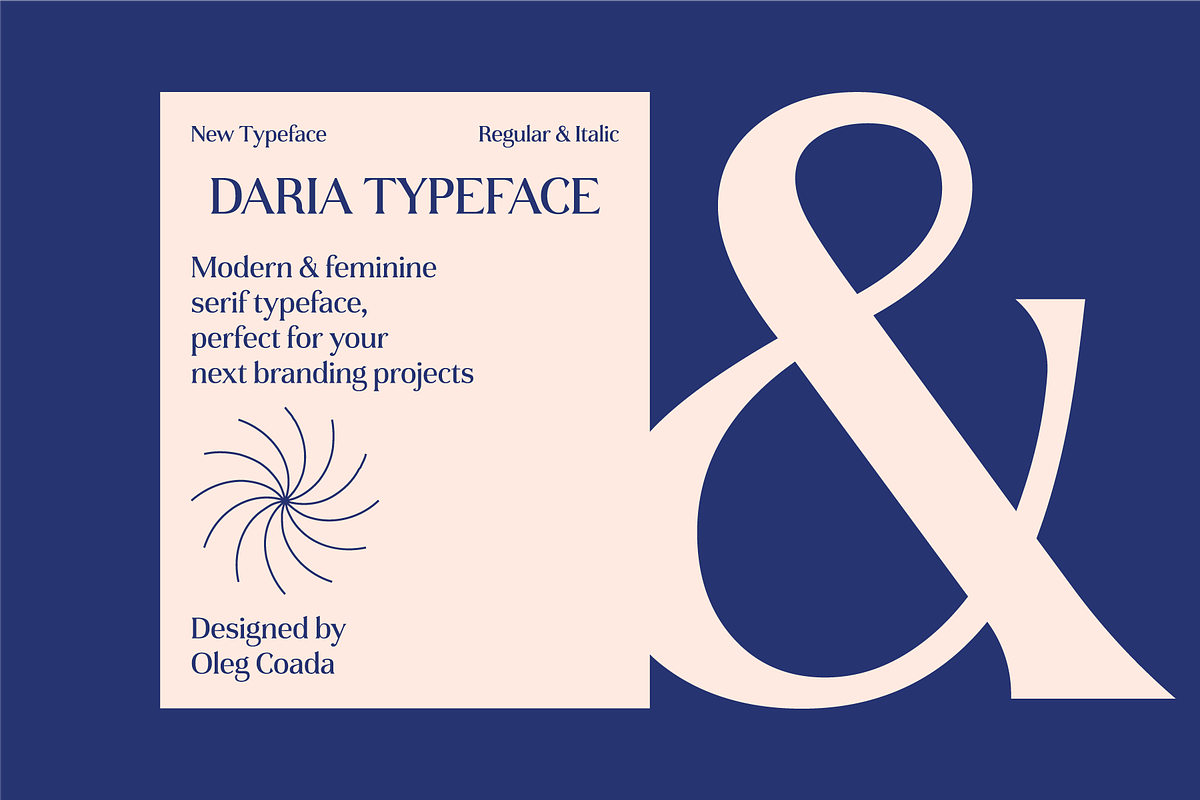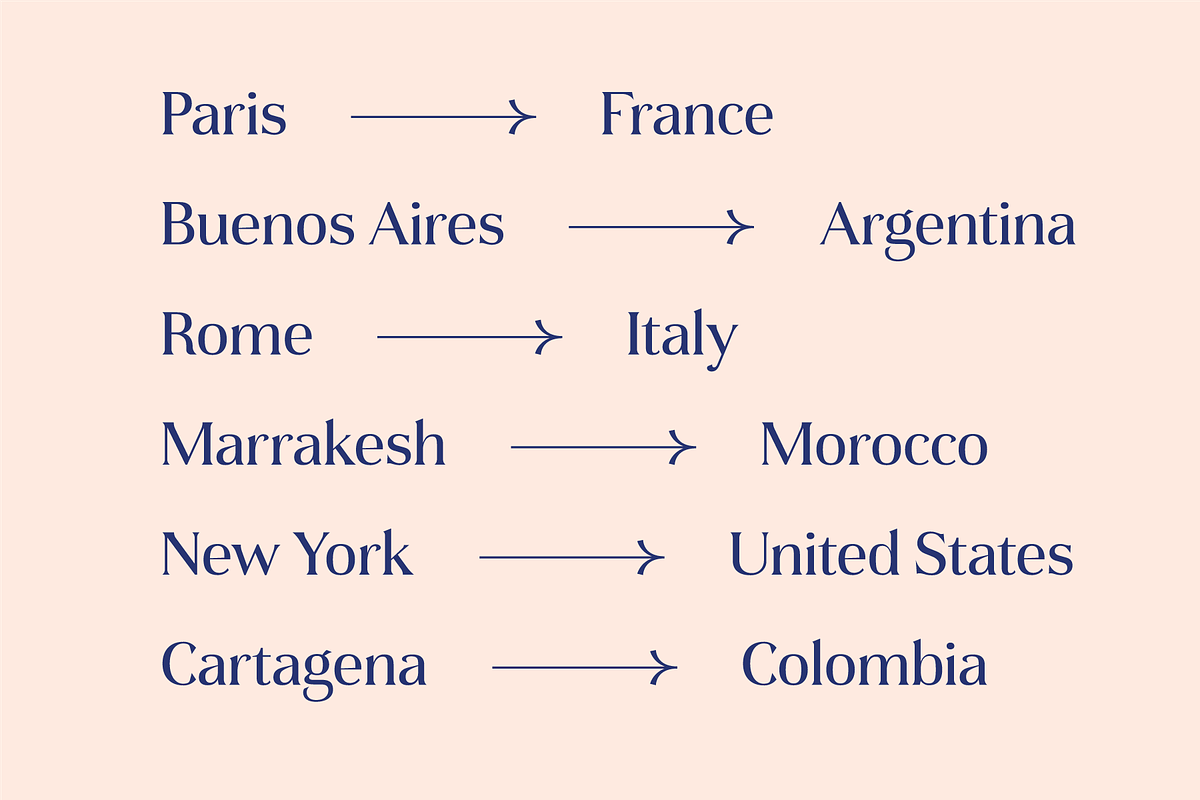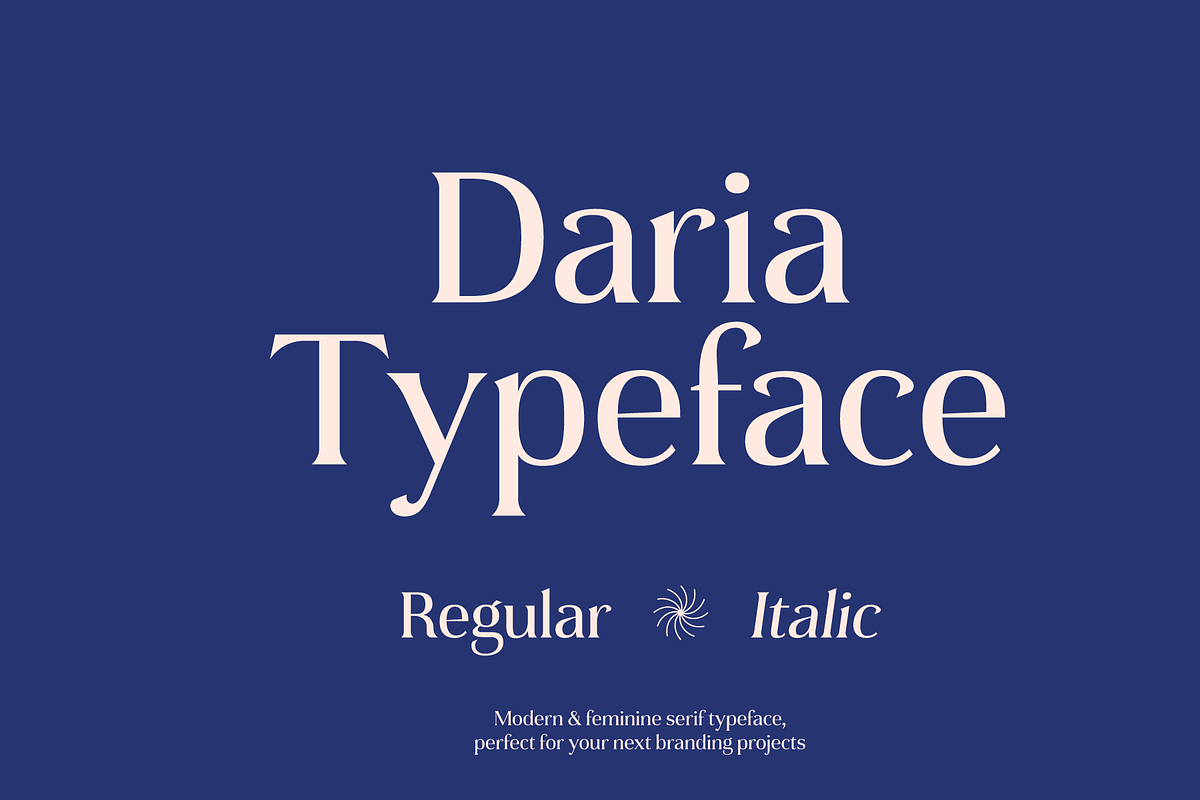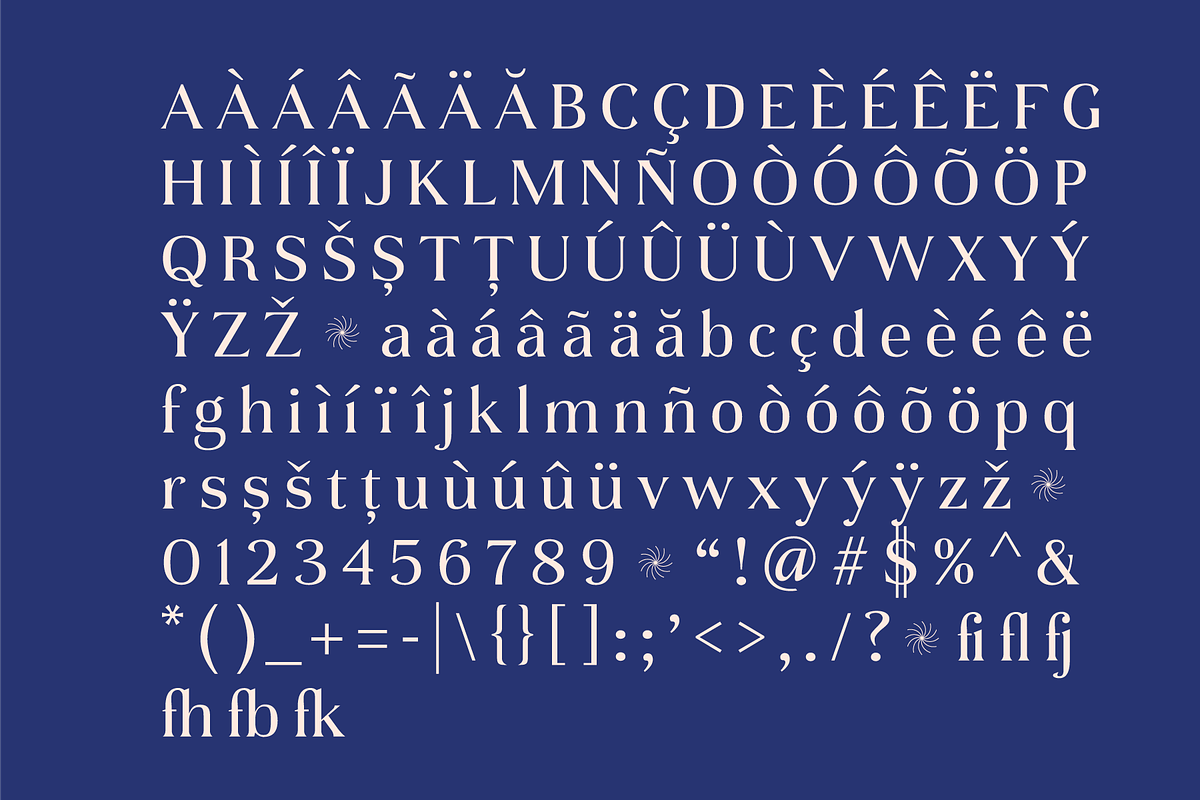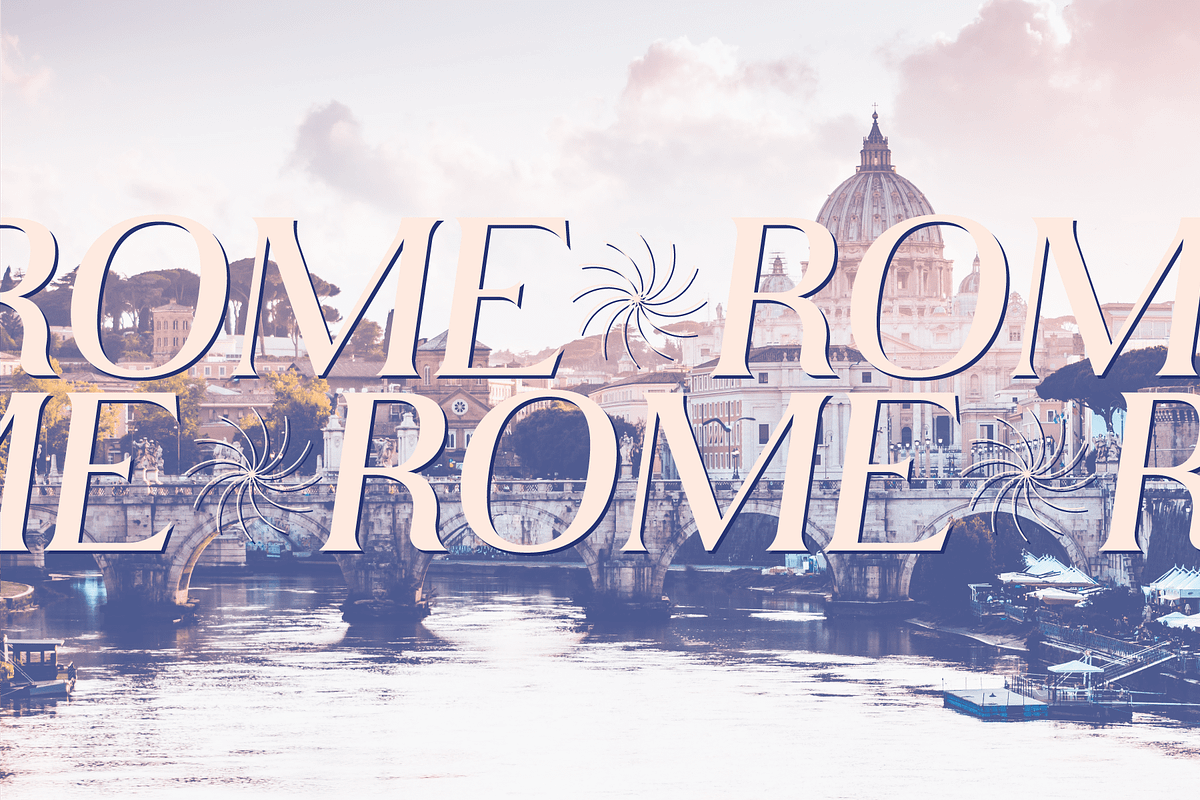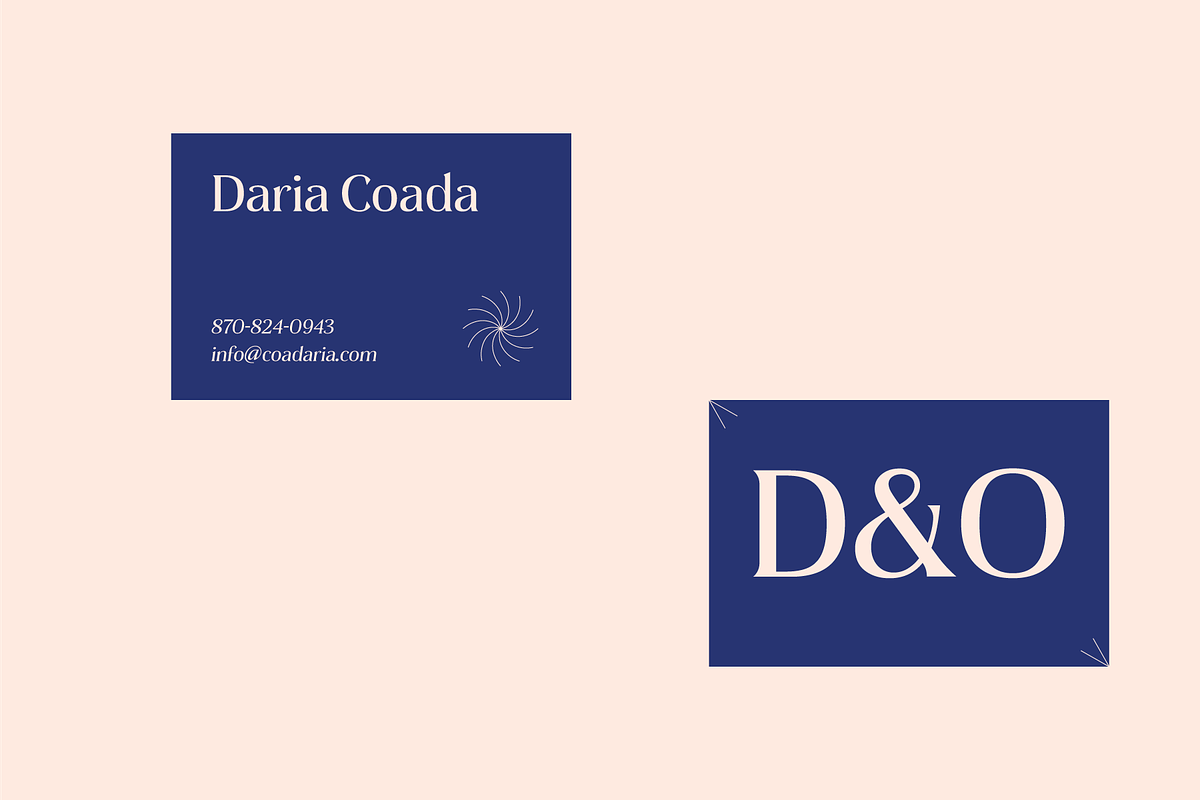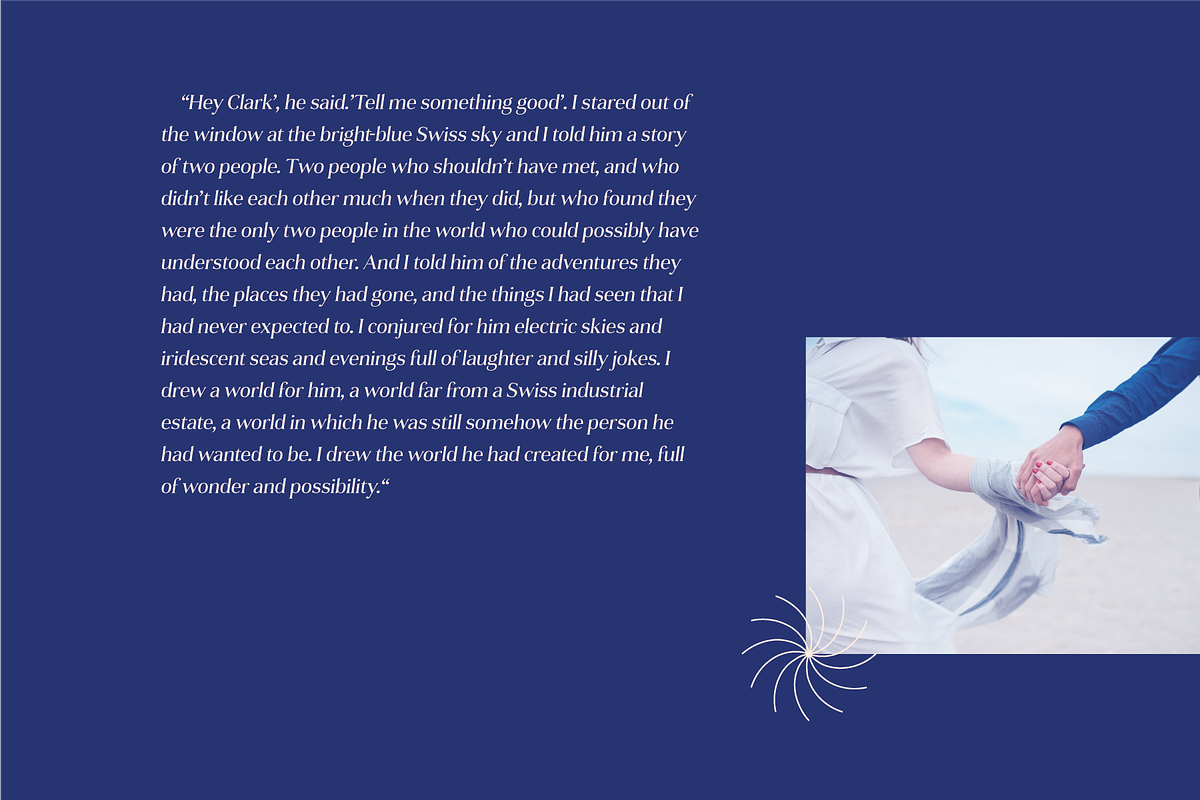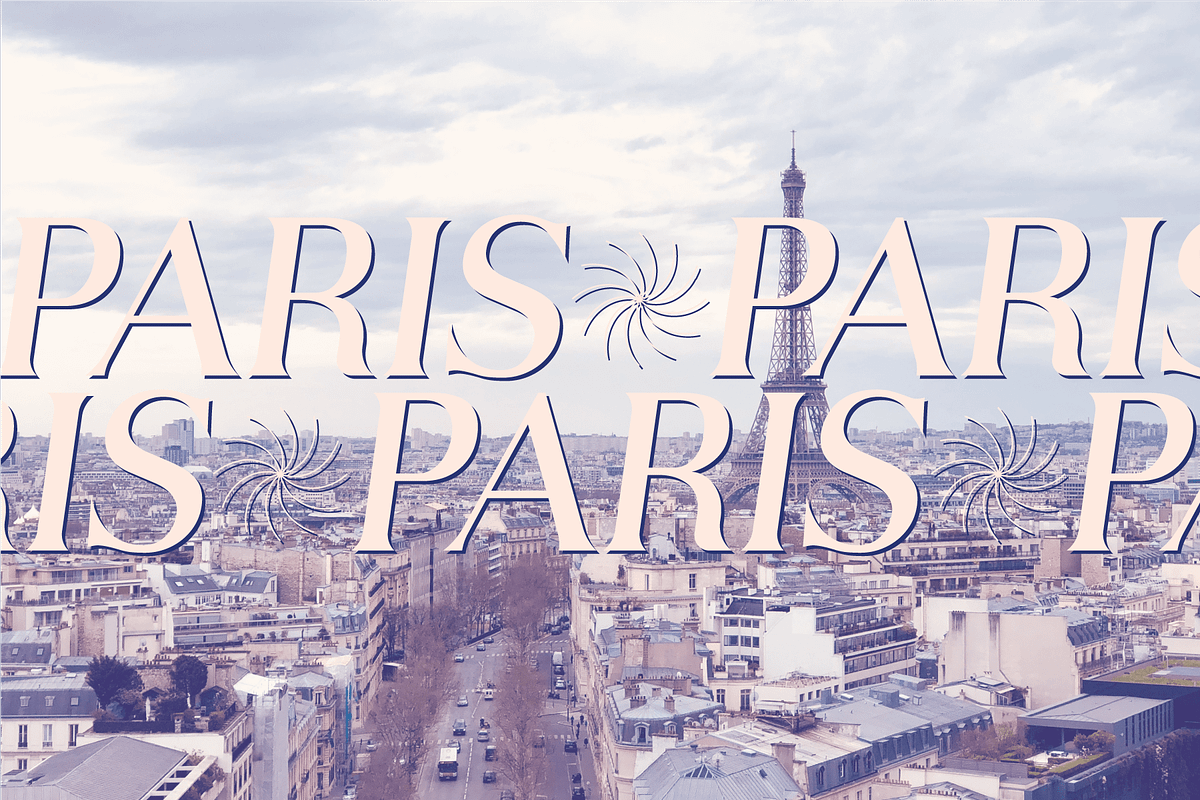
Daria Wedding Feminine Typeface
Introducing Daria Type, a modern, feminine, serif font, great for modern branding, posters, logos, social media projects, headers, advertising and so much more.
Regular and Italic weight.